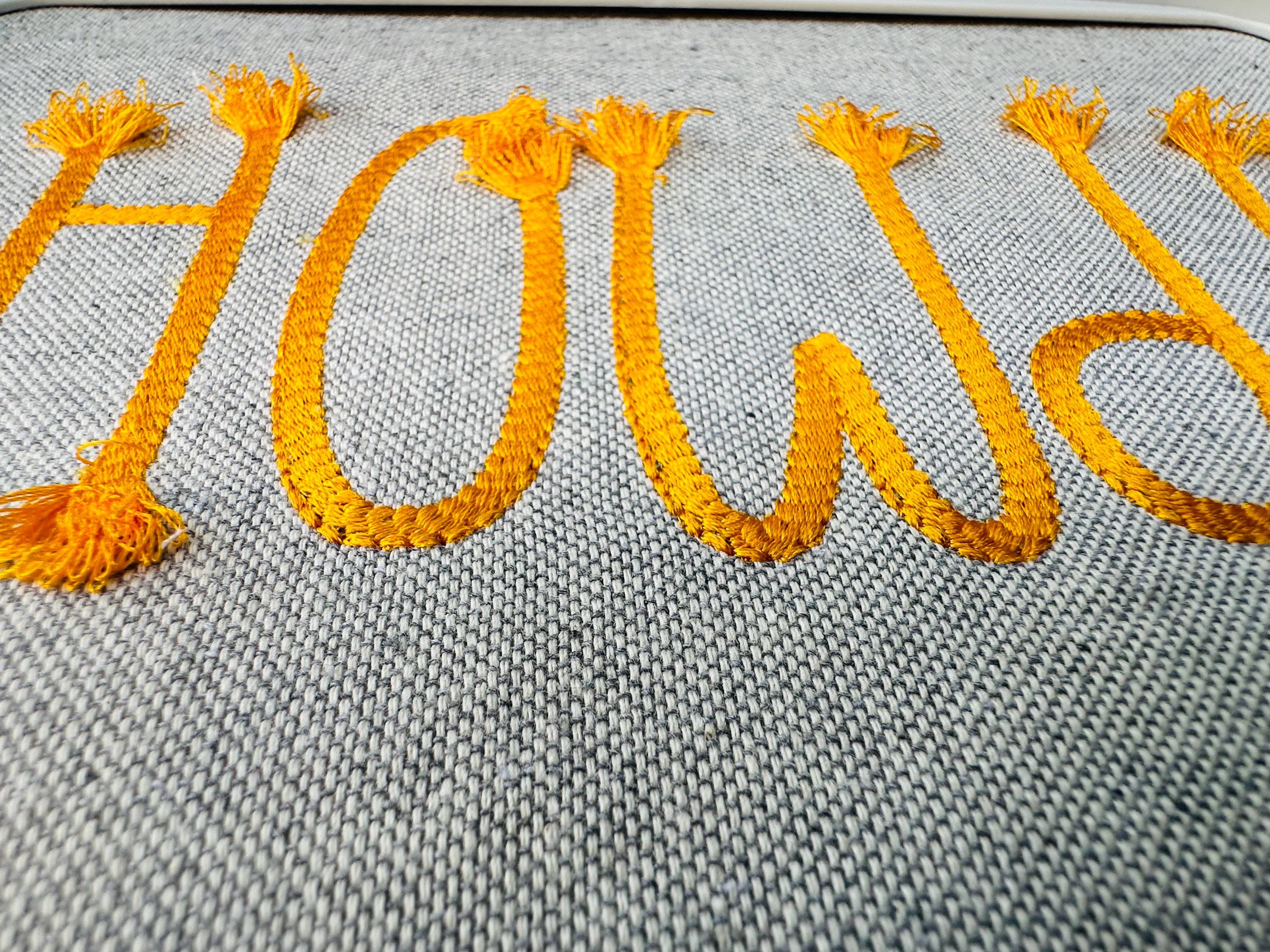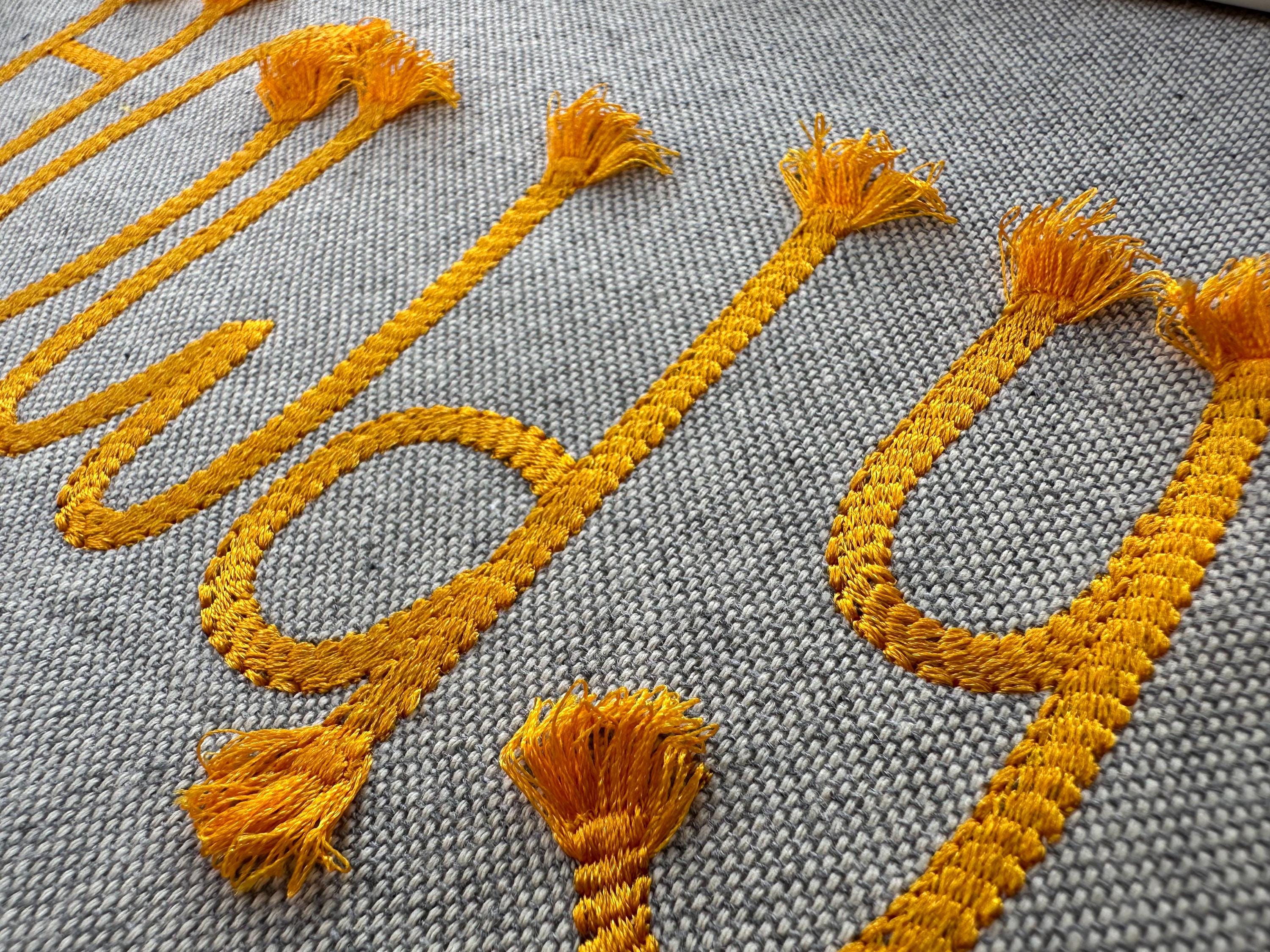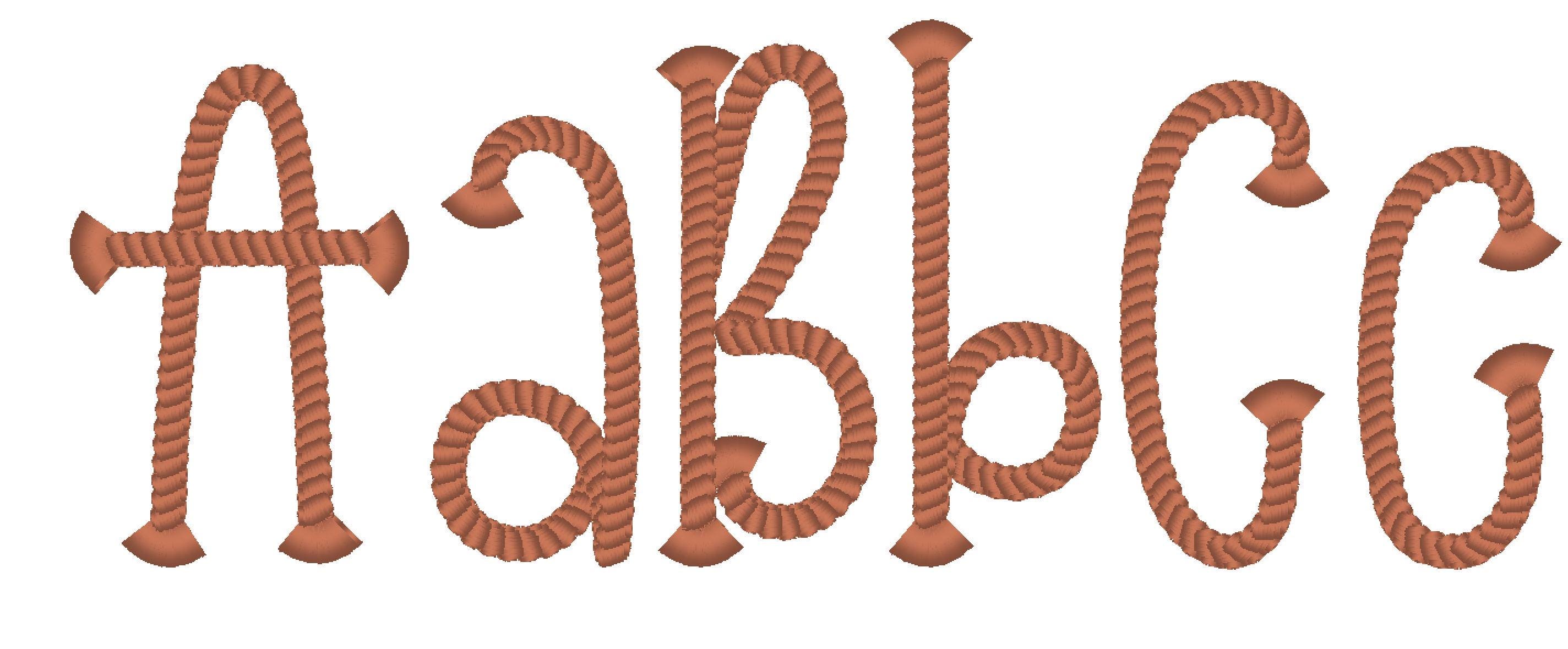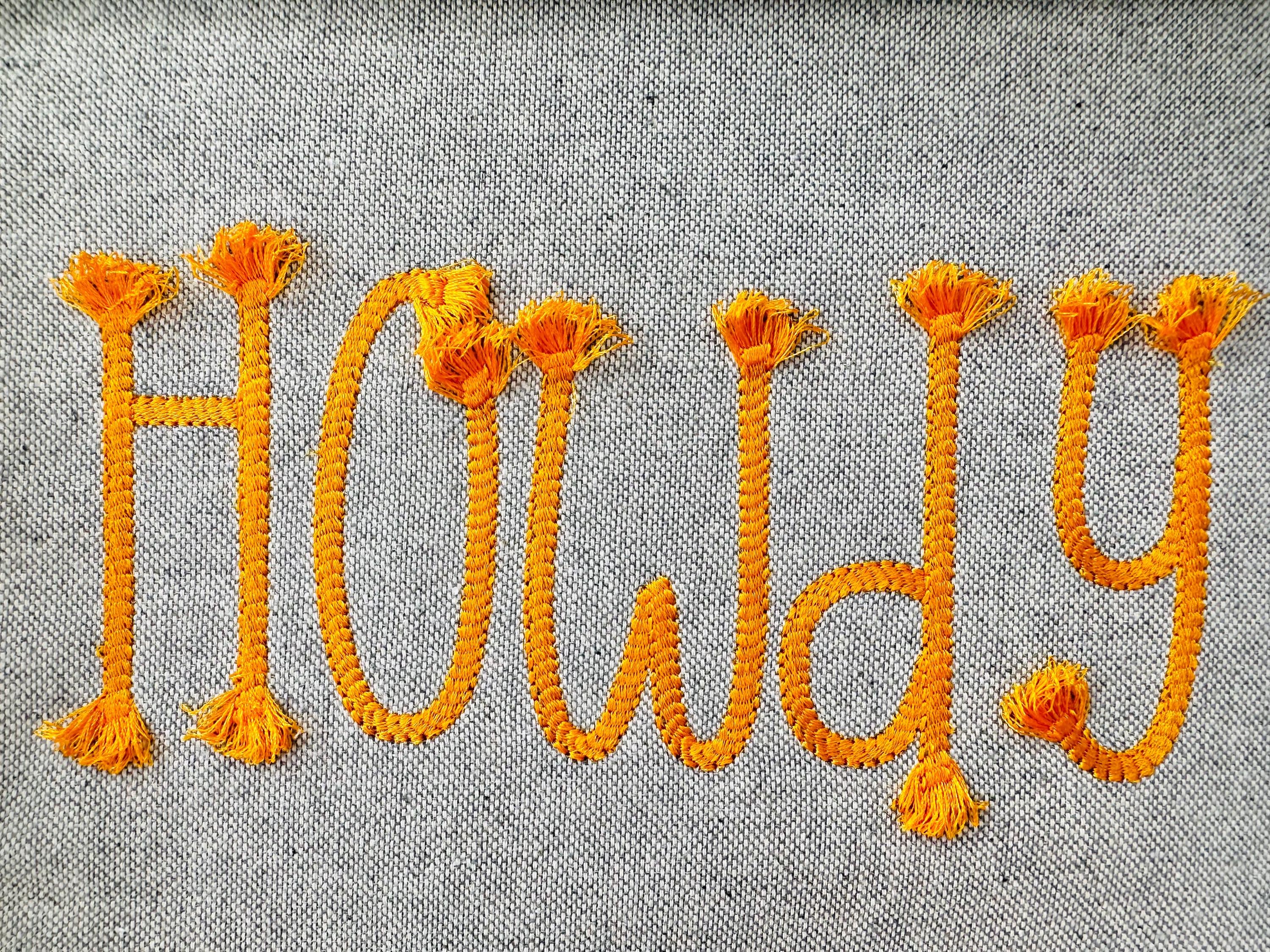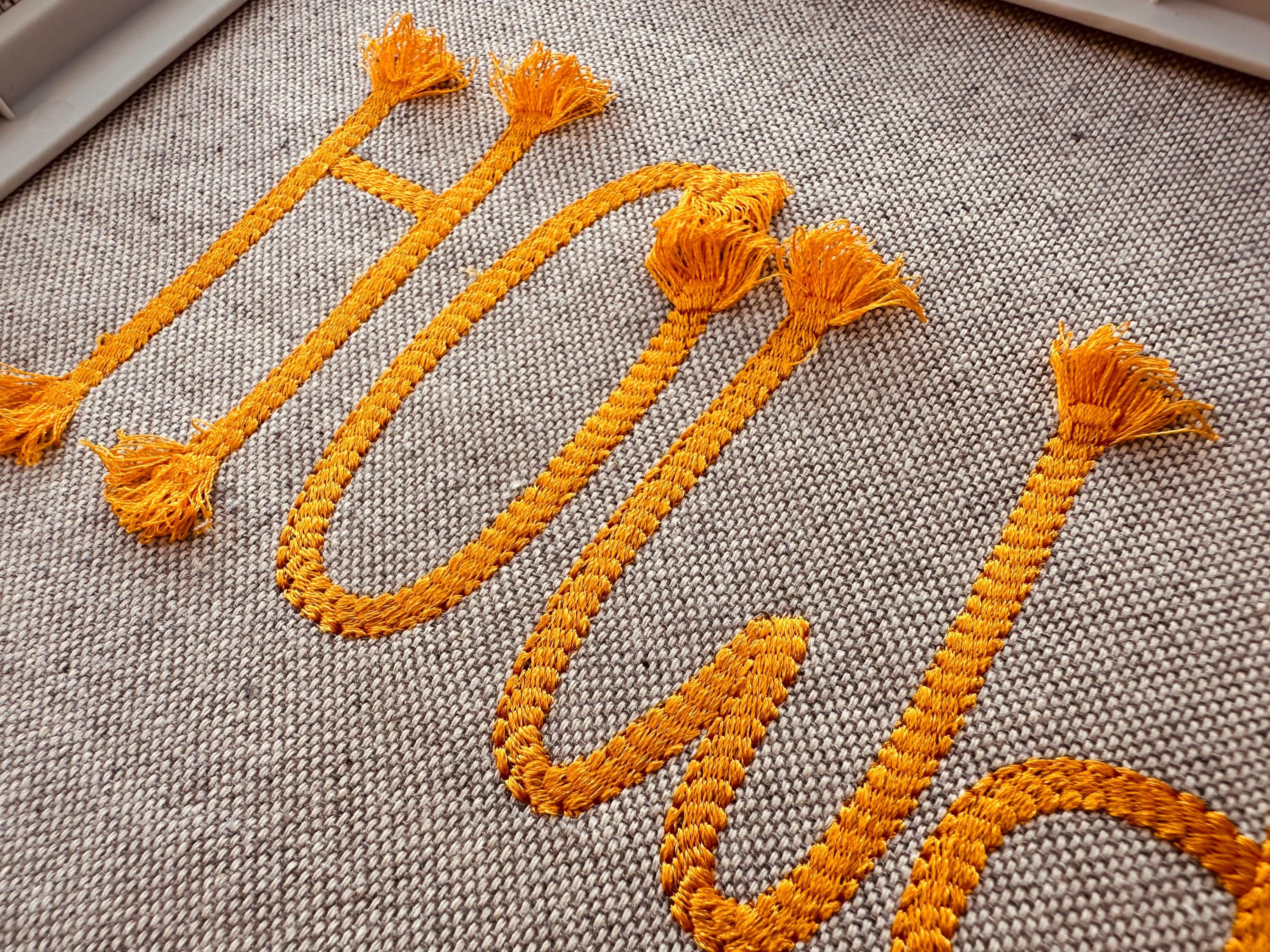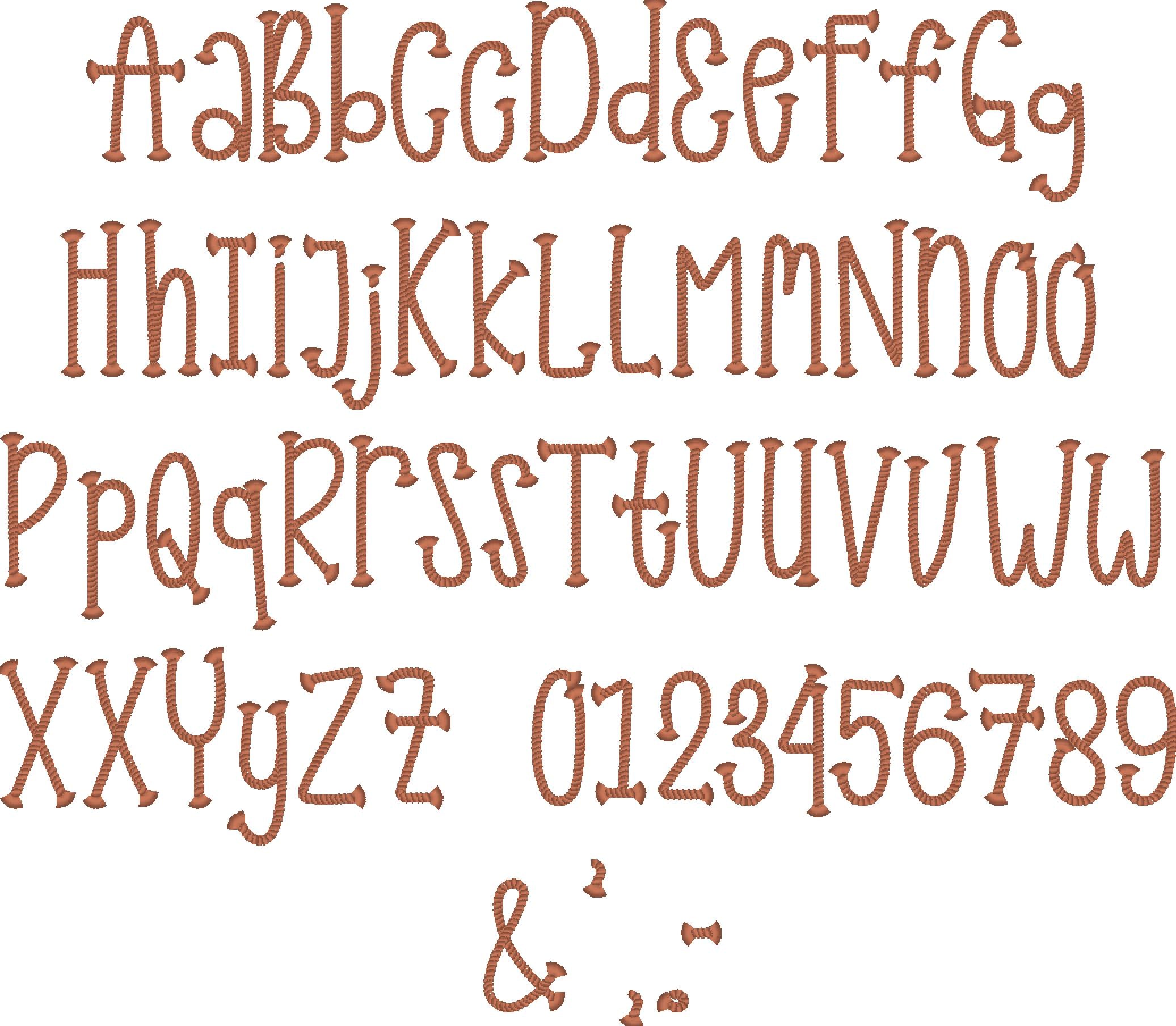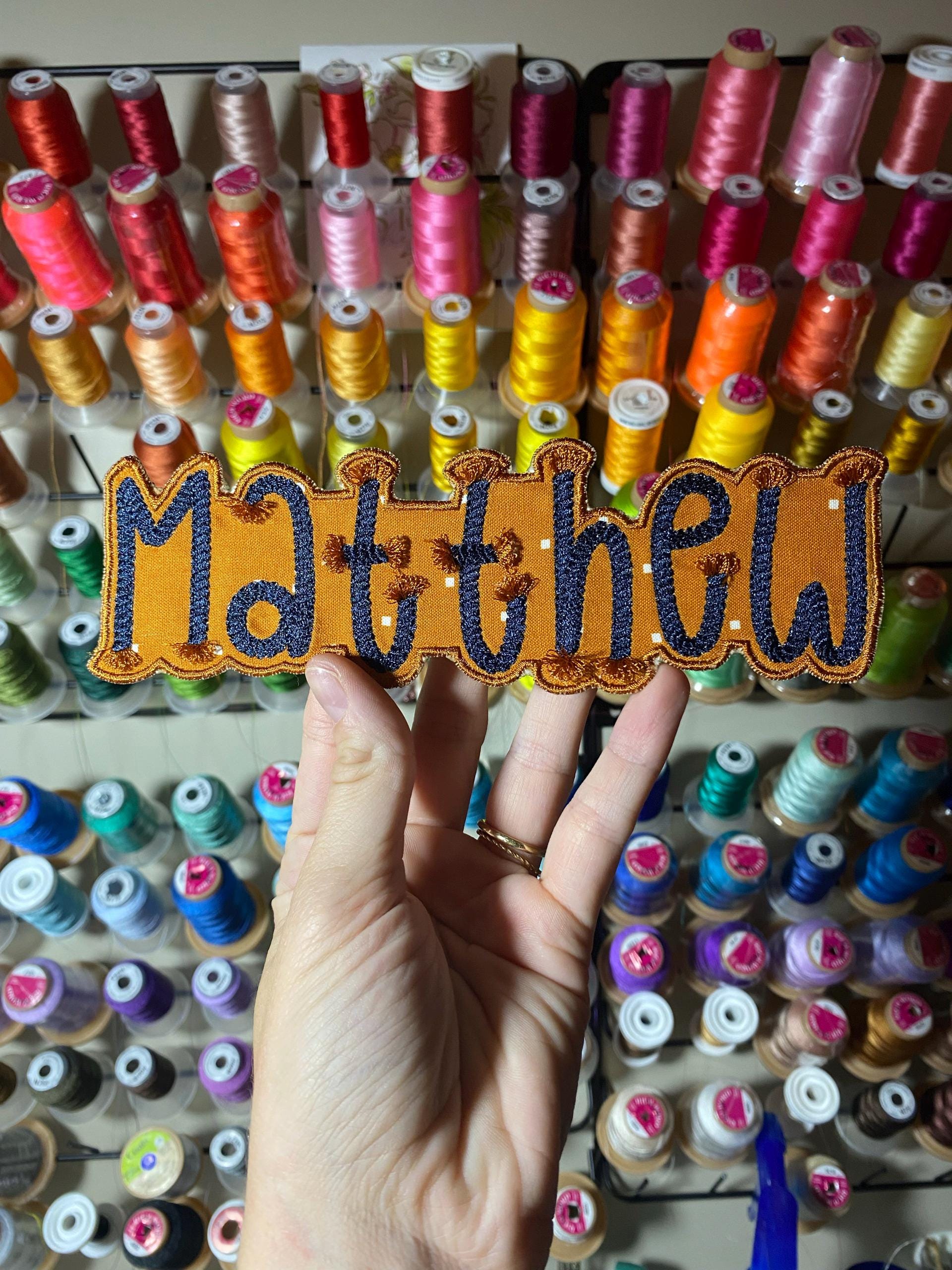
Rope FONT alphabet letters and numbers machine embroidery designs fringed ends tassels cowboy cowgirl kids Rodeo lasso rope monogram BX
Add a touch of Western flair to your projects with this Rope Font alphabet, complete with letters and numbers. Featuring fringed ends, this design is perfect for cowboy and cowgirl-themed items, Texas-inspired decor, and lasso-style monograms. Ideal for customizing kids' names, rodeo gear, and more!